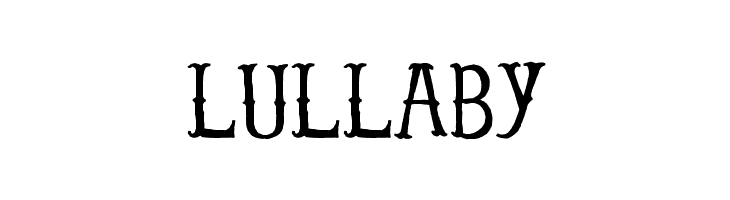
A bold, distressed font with a rugged, vintage appearance.
A bold, distressed serif font with a vintage, rugged appearance.
A bold, distressed font with a vintage and rugged appearance.
A bold, distressed font with a textured, vintage appearance.
An ornate and decorative font with intricate swirls, perfect for artistic and vintage-themed projects.
An ornate, vintage-style font with intricate flourishes and bold strokes.
A bold, distressed font with a rugged, vintage appearance.